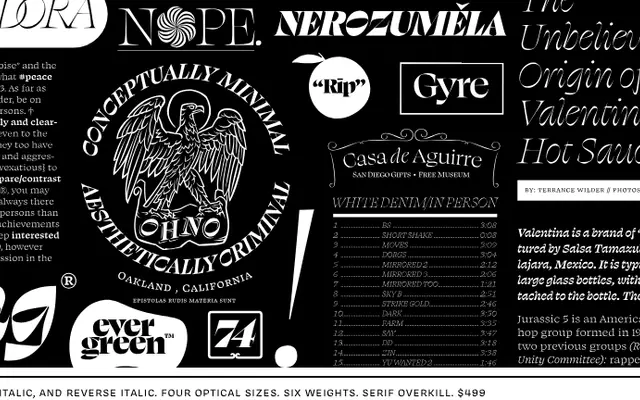
Swear specimen from OH no Type
A high-contrast serif spanning four optical sizes and six weights, with a reverse italic called Cilati as a second emphasis option alongside a conventional italic.
Swear runs from Text to Banner across 72 styles, combining Romans, Italics and the inverted 'Cilati' cuts into a full system for everything from running copy to large-format headings. The extreme contrast came from flat-brush practice, with exterior serifs pushed to razor thinness and interior serifs kept deliberately large to manage spacing on letters like A and V. Variable fonts for each of the three stylistic axes are included with the complete package.
Swear is a high-contrast serif with exaggerated razor-thin exterior serifs and a pronounced weight differential, developed from flat-brush calligraphic exploration. Its four optical sizes and expressive italic variants place it firmly in the display-to-text serif tradition.